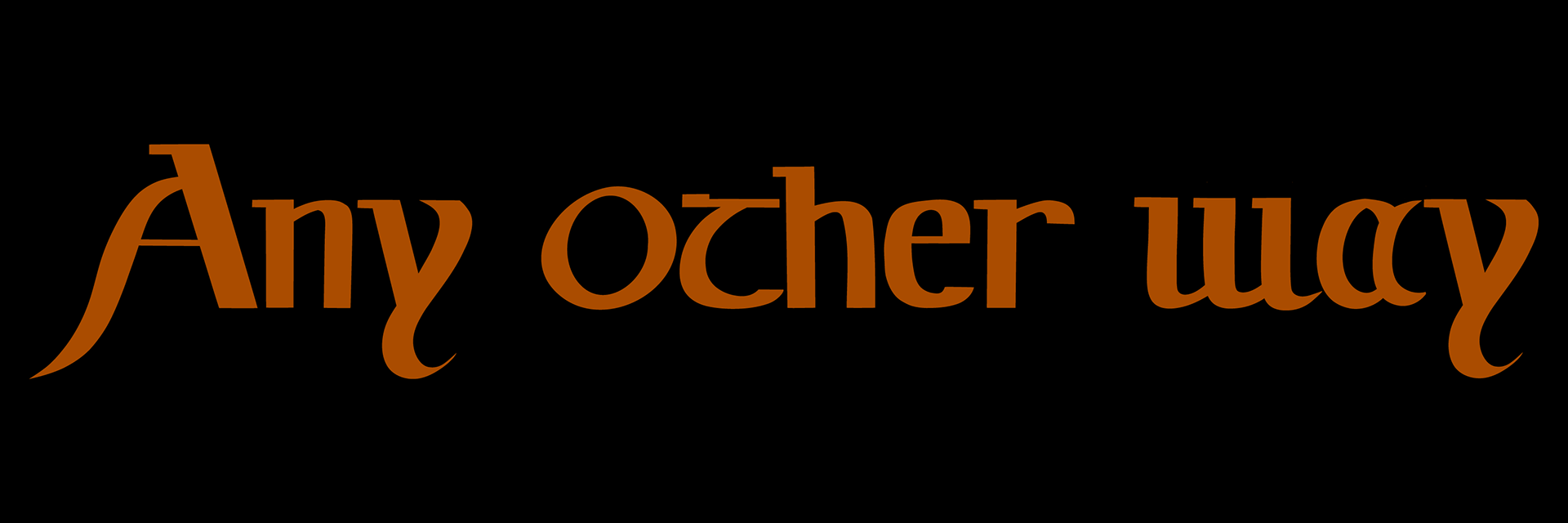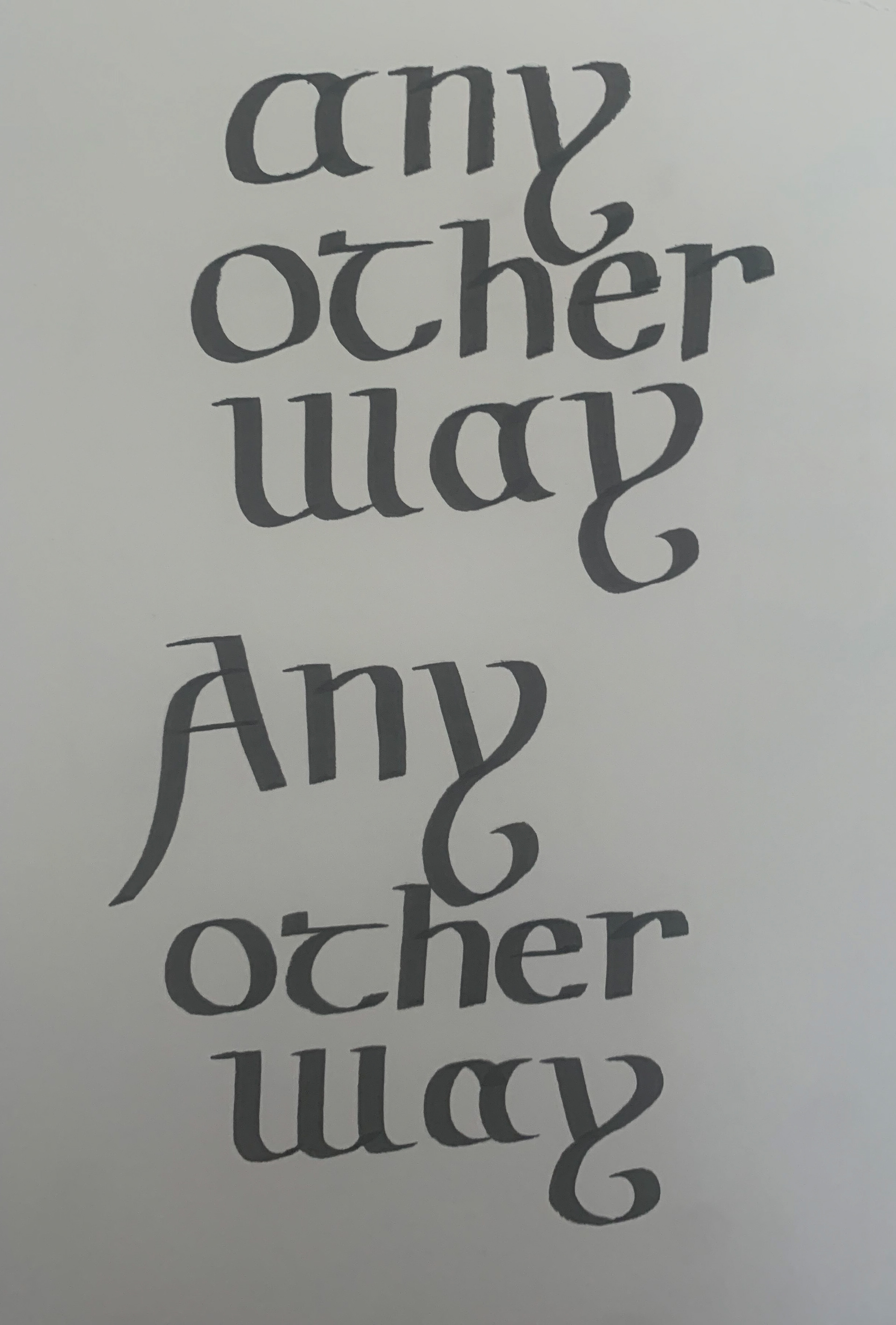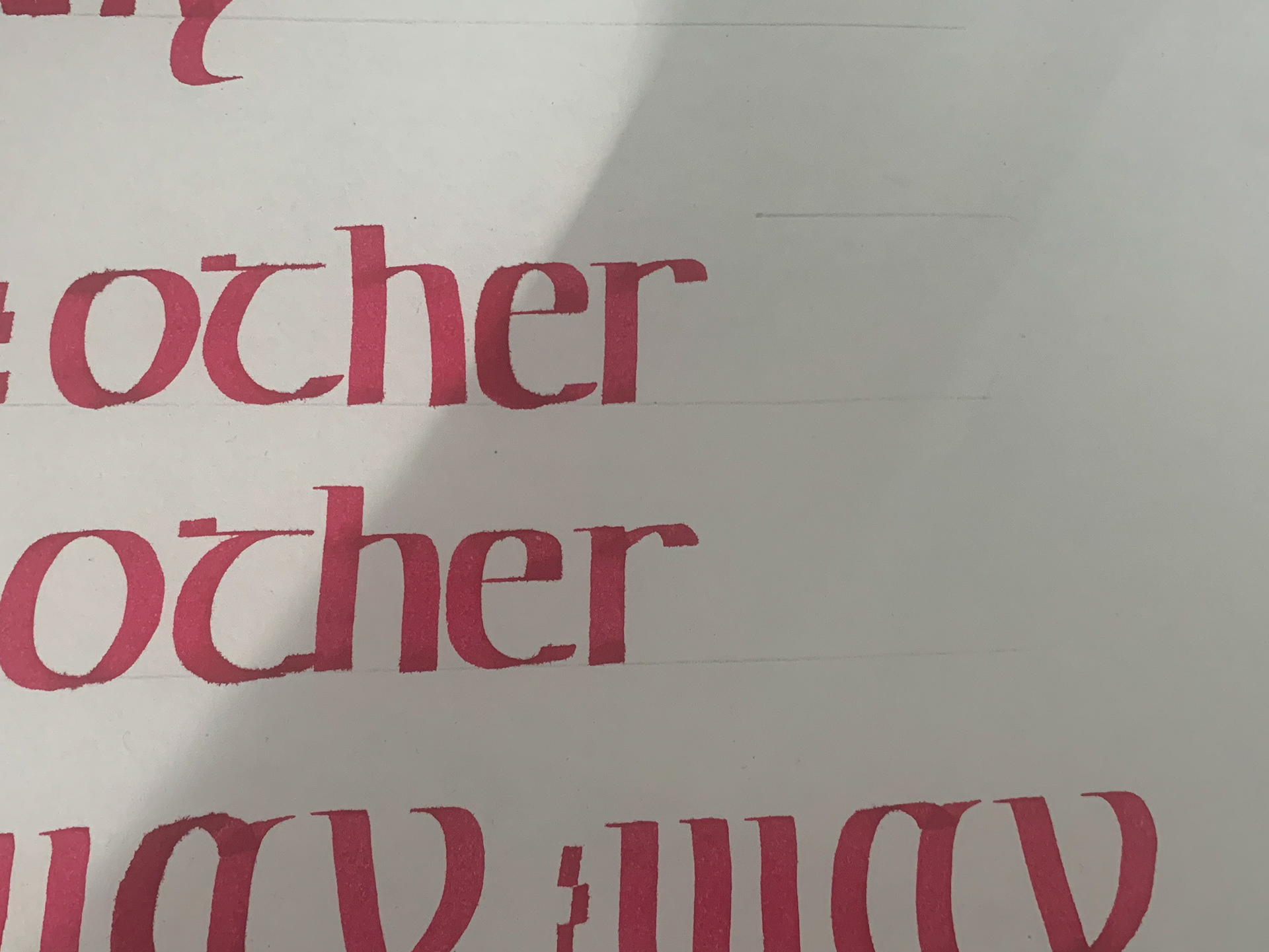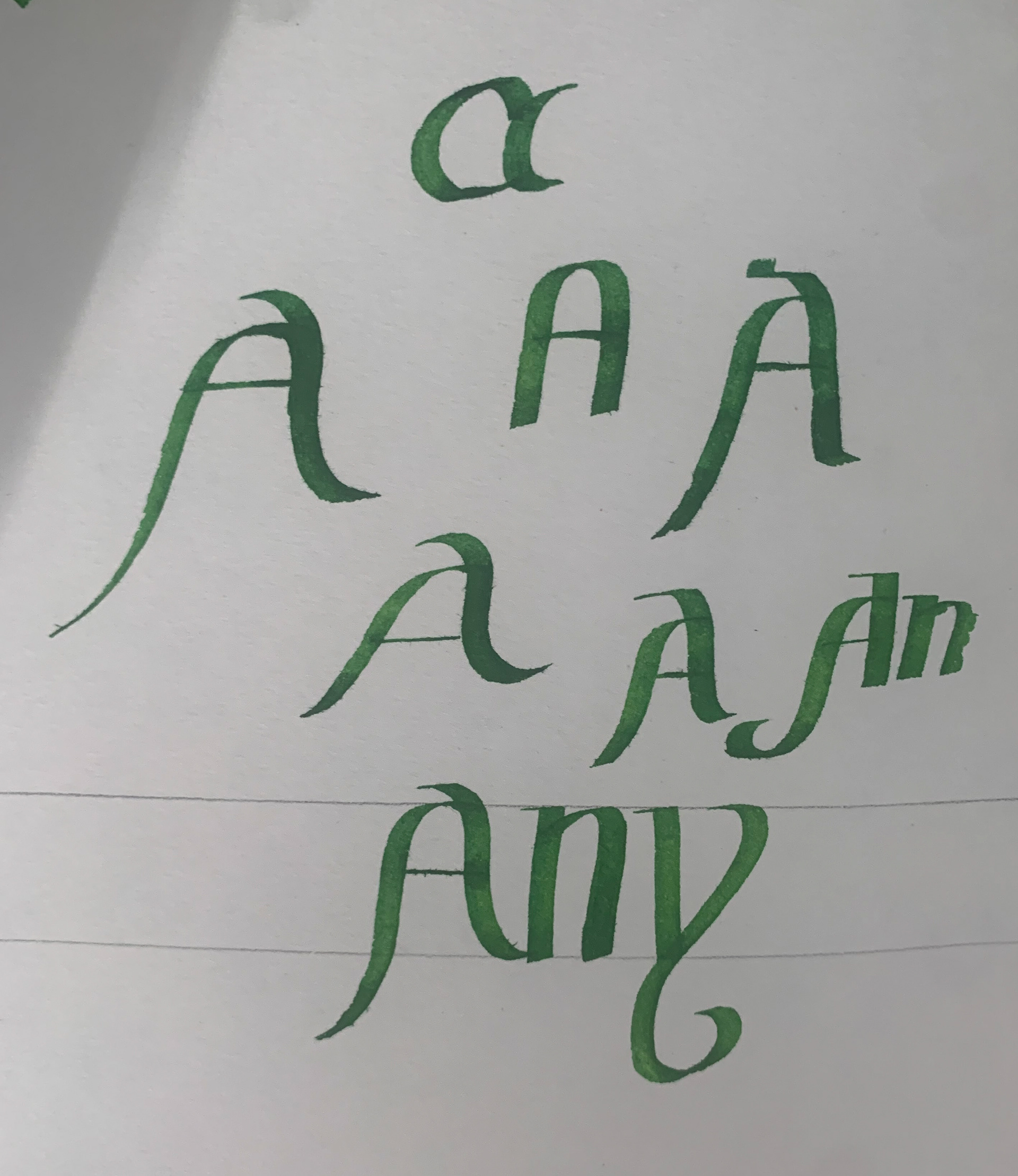
Title treatment on background photo taken by me and edited in photoshop.
Early drafts, done with calligraphy pen and ink rather than a pencil sketch.
Inspired by Irish insular half uncial calligraphy.
Any other way, a hand lettered short story title for Micronised by Aria K.C. Inspired by Irish insular calligraphy script. Accompanying artwork on left page by Samuel Bloomer.